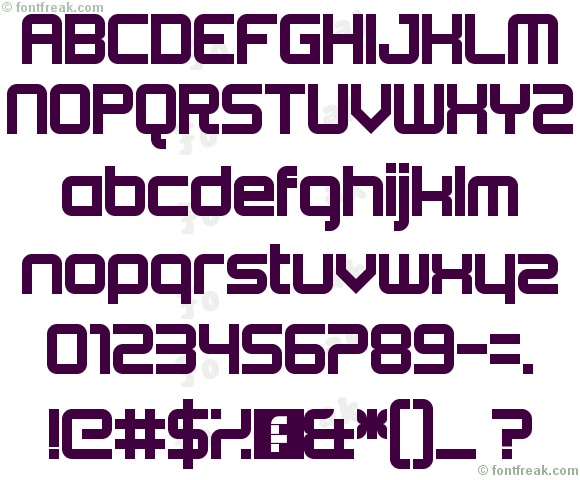
Beta Regular
Beta Regular — Character Map
About Beta Regular
Beta Regular, designed by Andrew McCluskey in 2014, is a striking sans-serif font that offers a contemporary aesthetic ideal for various design projects. This typeface features clean lines and a modern feel, making it versatile for both digital and print media. With its even stroke weight and minimal contrast, Beta Regular ensures excellent readability while maintaining an elegant simplicity. The spacing is well-balanced, allowing for clear legibility in any context, whether in headlines or body text.
This font is particularly well-suited for a range of uses. Graphic designers can leverage Beta Regular for branding projects, creating sleek logos that resonate with modern consumers. Small business owners will find it perfect for promotional materials, including flyers and brochures, where clarity and style are paramount. Content creators can utilize this typeface for blog headers and social media posts, ensuring their messages stand out in an increasingly crowded digital landscape. Additionally, Beta Regular works wonderfully in wedding invitations and other event stationery, offering a polished look that appeals to those seeking sophistication.
What sets Beta Regular apart is its perfect blend of modernity and functionality. This font not only enhances the visual impact of any project but also allows for a seamless integration into various design contexts. For those seeking a stylish and versatile typeface, the Beta Regular font free download is an opportunity not to be missed.